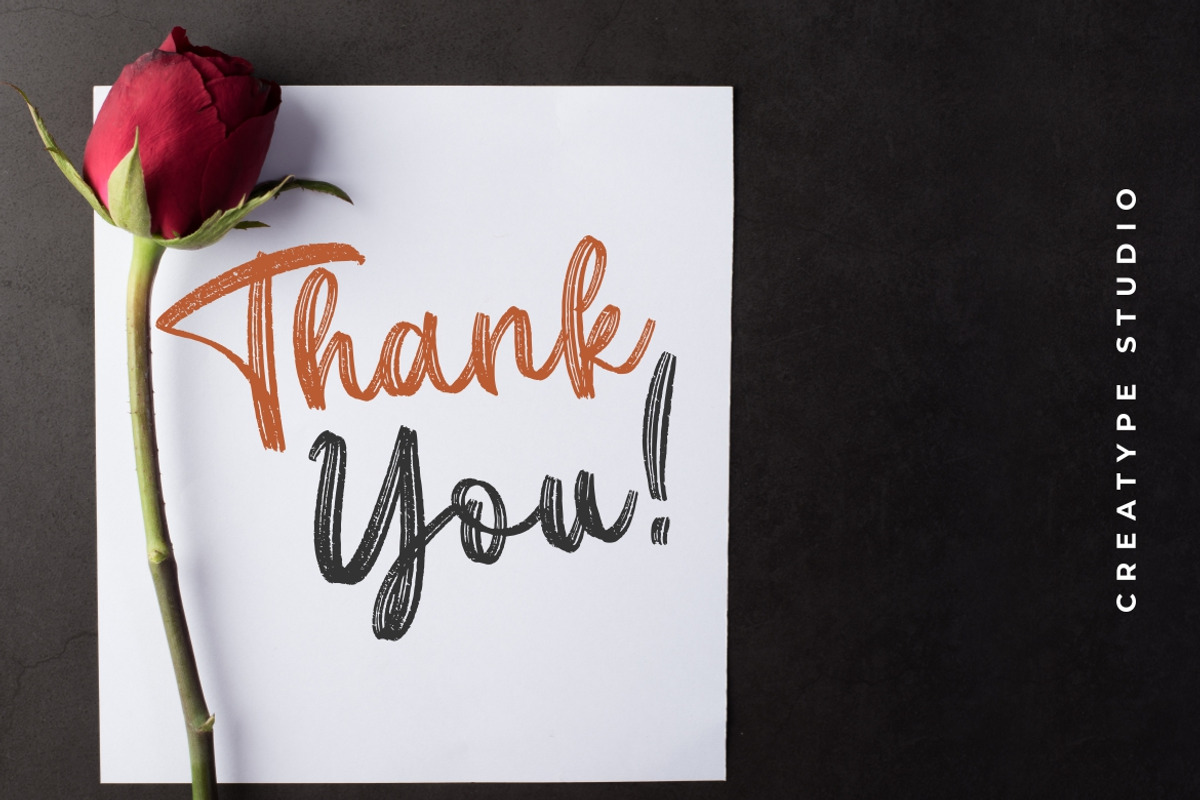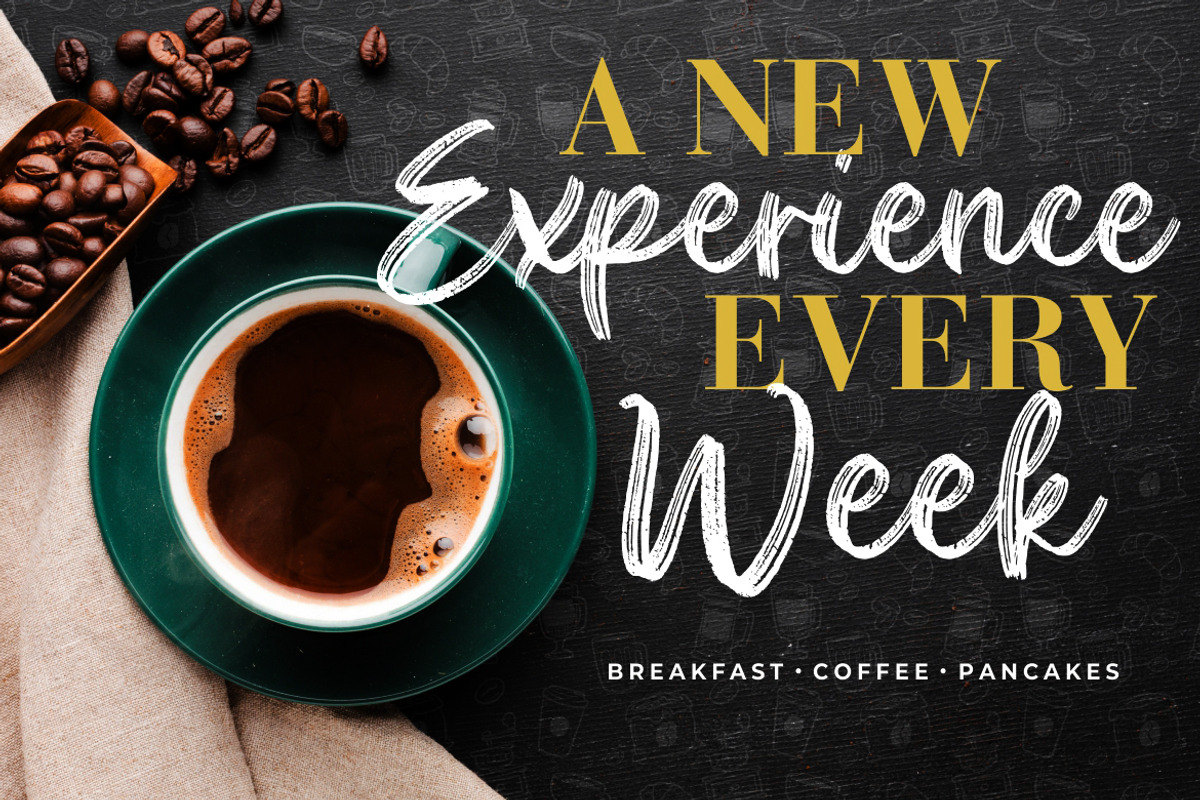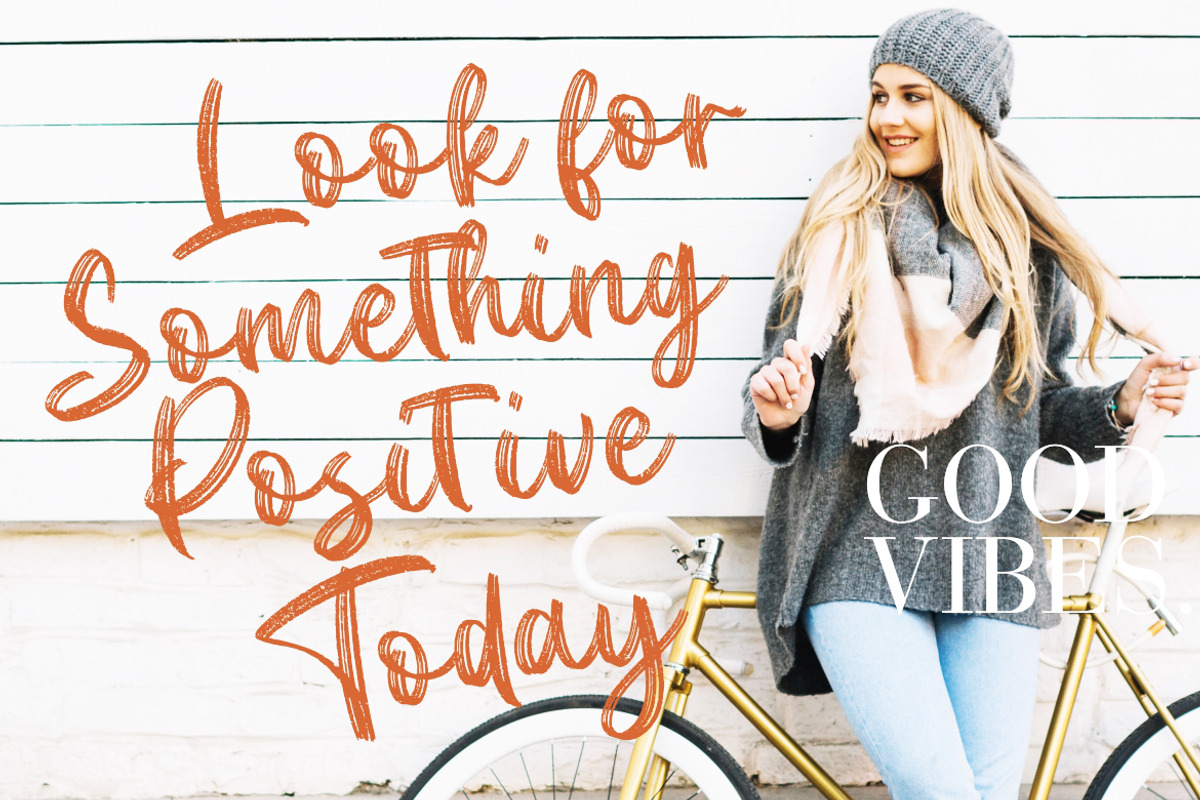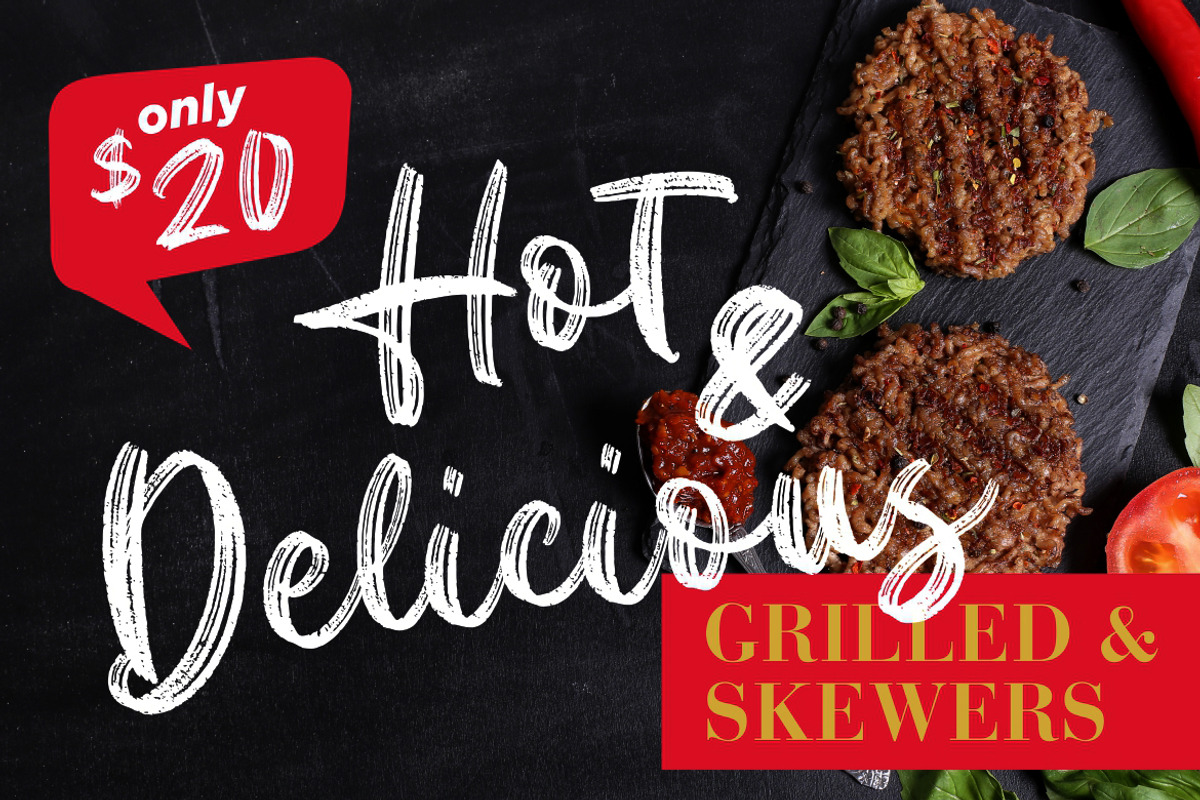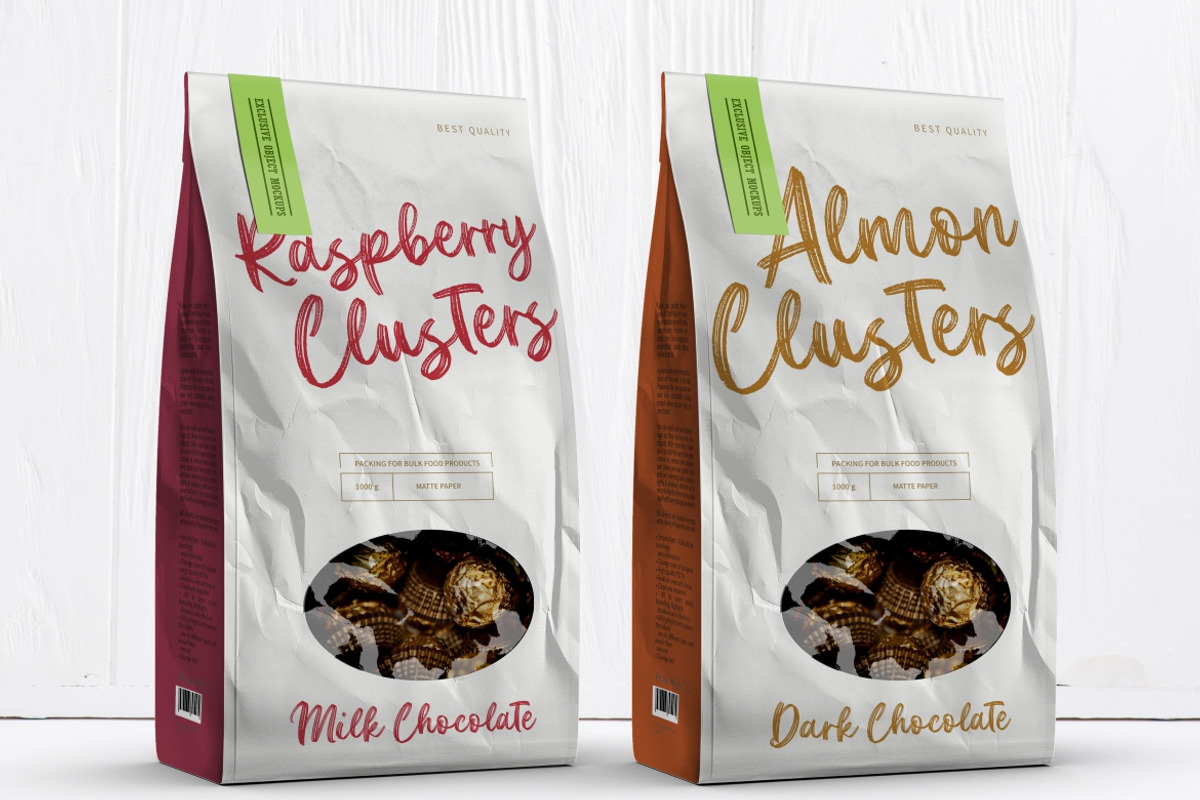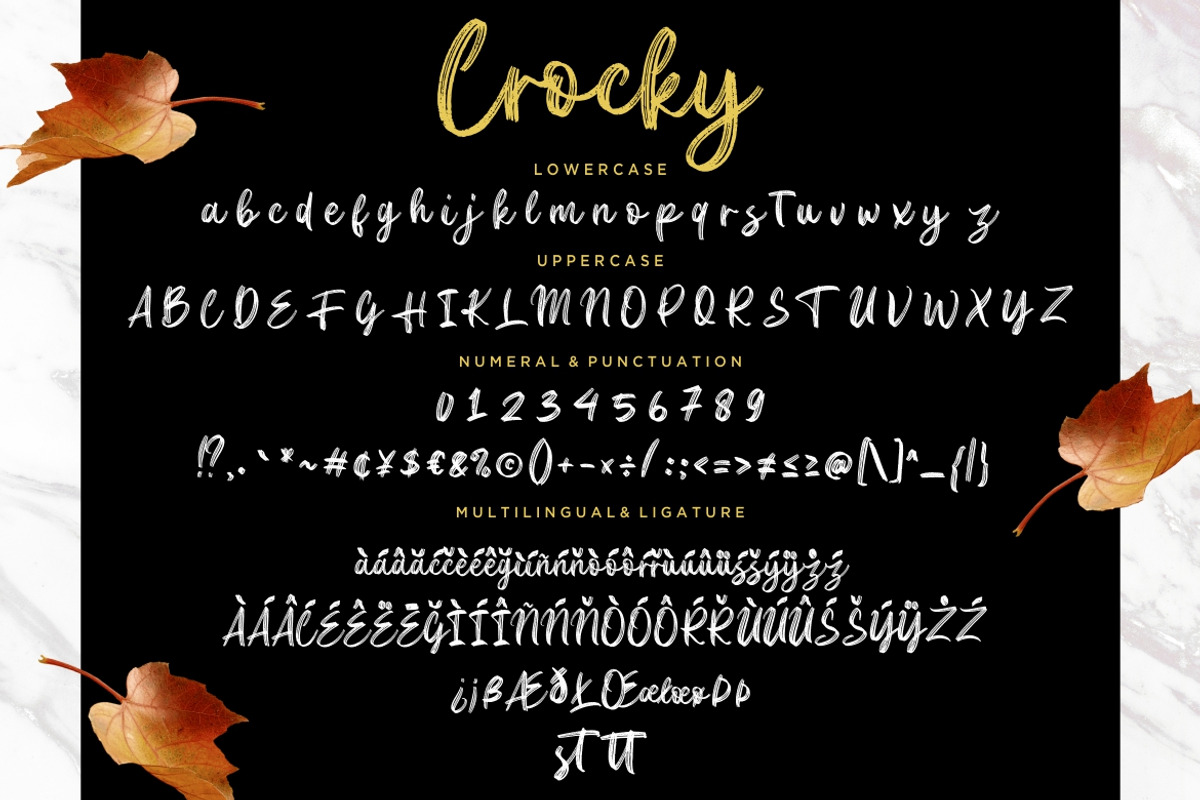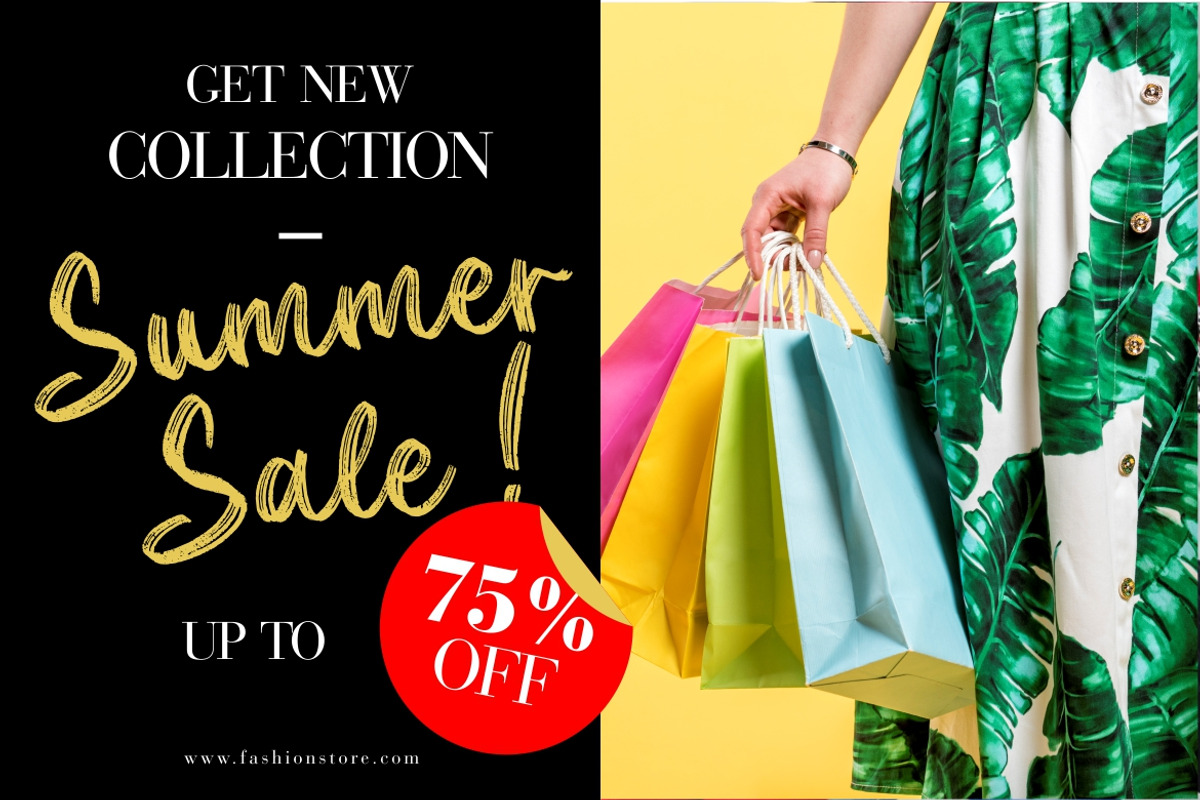
Crocky Handbrush Advertisement Font
Crocky is handbrush typeface is a brush script that is written casually and full of scratch.
Crocky is perfect for branding projects, logo, wedding designs, social media posts, advertisements, product packaging, product designs, label, photography, watermark, invitation, stationery and any projects that need handwriting taste.
Fonts include multilingual support for; Afrikaans, Albanian, Czech, Danish, Dutch, English, Estonian, Finnish, French, German, Hungarian, Italian, Latvian, Lithuanian, Norwegian, Polish, Portugese, Slovak, Slovenian, Spanisch, Swedish
Crocky Handbrush Advertisement Font by Creatype Studio fits naturally into Branding, posters, packaging, typography.